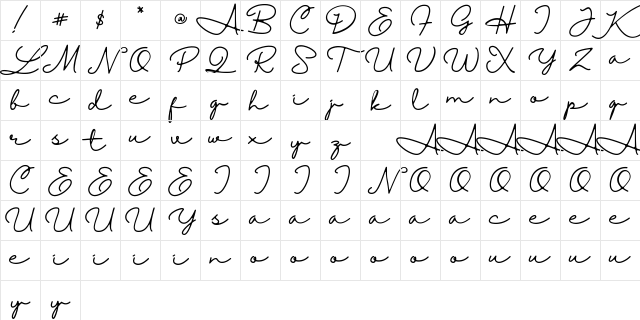
Halimun Regular Free Font
Halimun Regular
Foundry: Creatype Studio Co.
Designer: Rian Rahardi
Design Context for Halimun
Halimun is a composed and adaptable typeface that performs quietly and consistently across a wide range of design contexts.